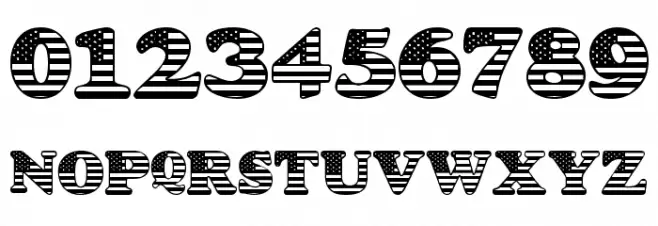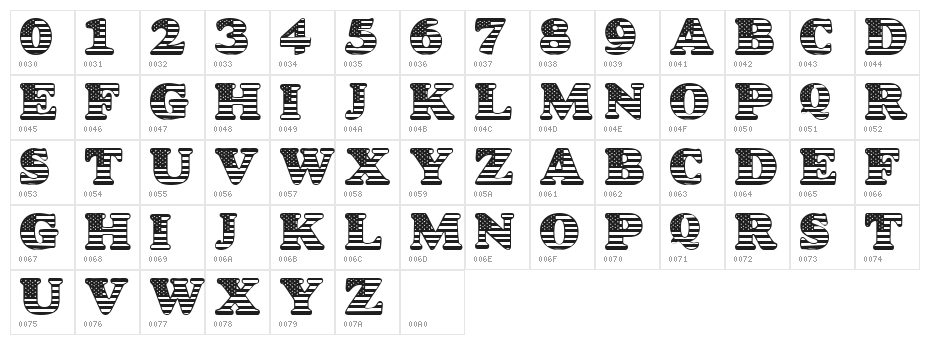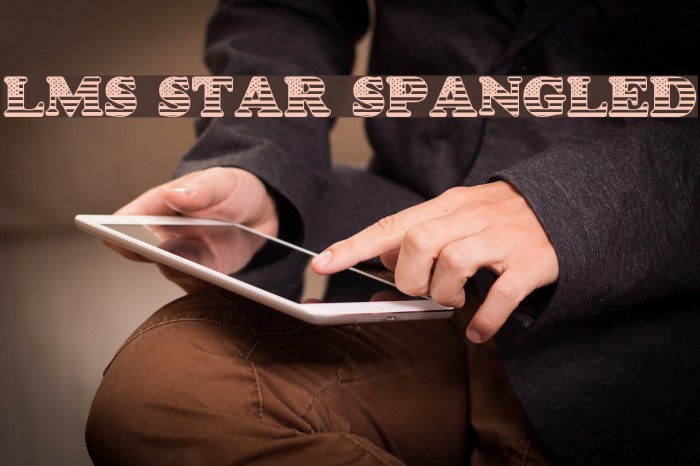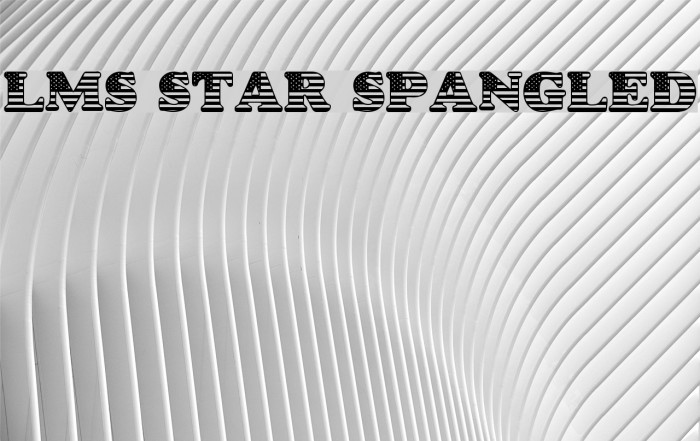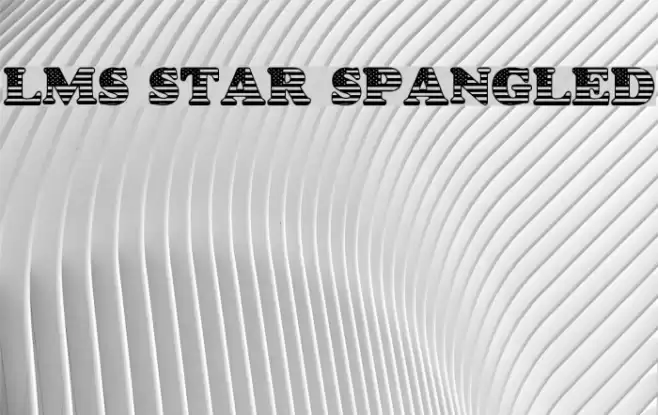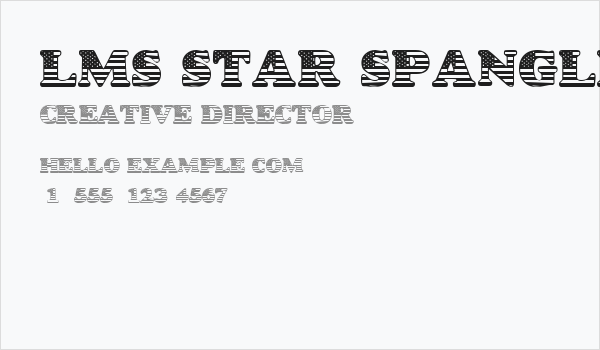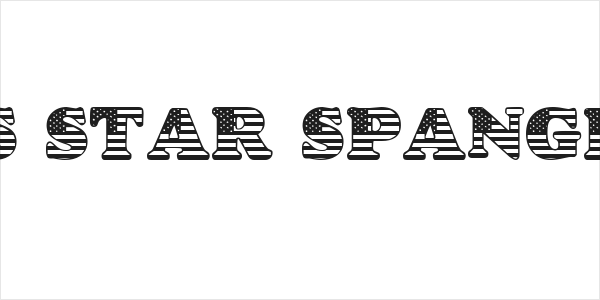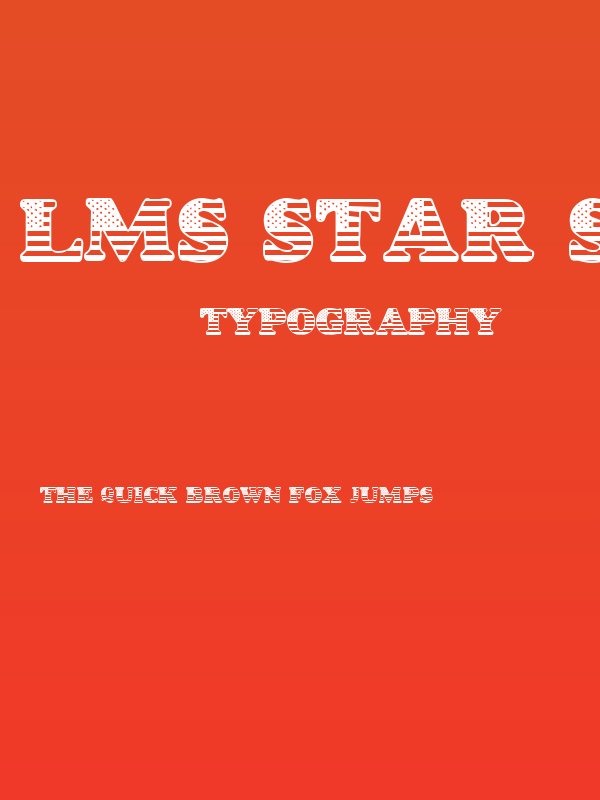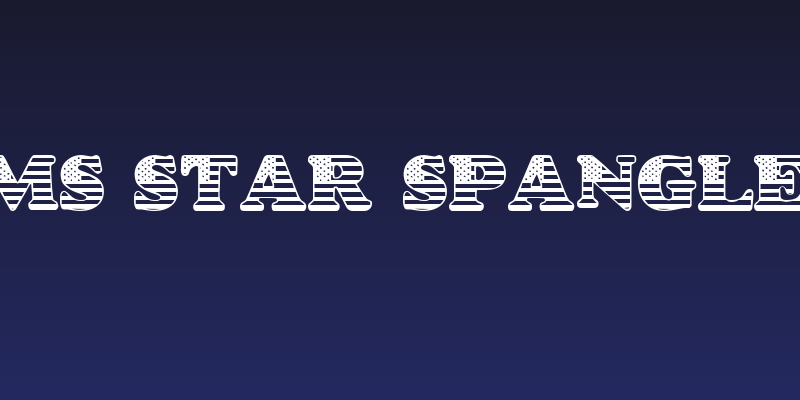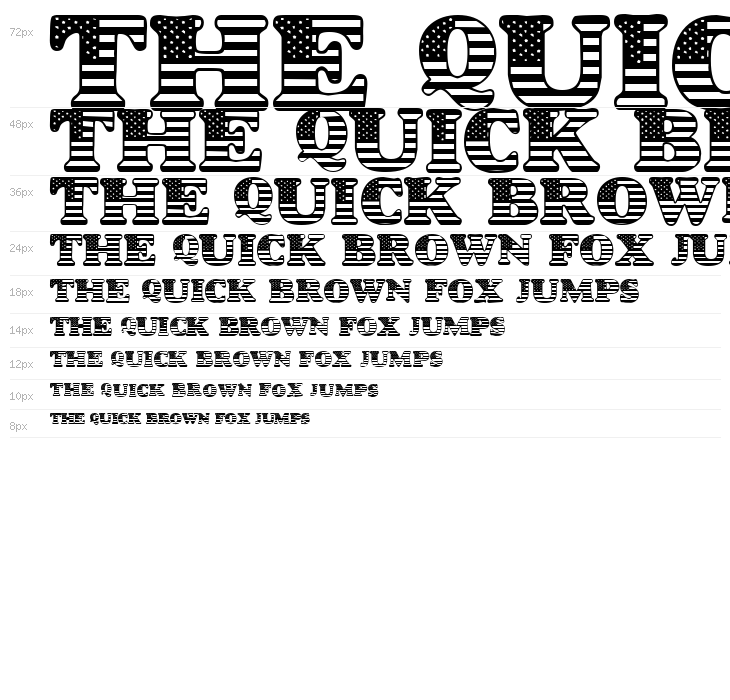
LMS Star Spangled Font
LMS Star Spangled Description
This decorative font features a bold and patriotic design, incorporating elements of the American flag within each character. The letters are filled with stars and stripes, creating a visually striking and thematic appearance. The uppercase letters are particularly prominent, with a strong presence that makes them ideal for attention-grabbing headlines or themed projects. The numbers and special characters follow the same design pattern, ensuring consistency across all glyphs. This font is perfect for projects that require a sense of national pride or a celebratory tone.
| Proposed Projects | Ideal for patriotic event posters, Fourth of July celebrations, themed merchandise, and branding that emphasizes American pride. |